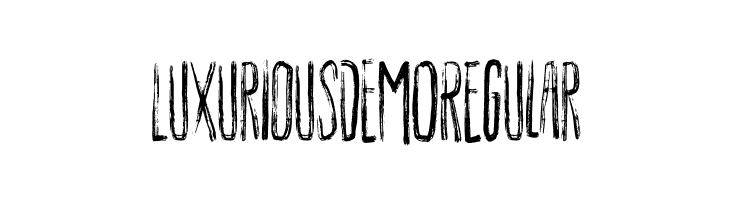
A playful, handwritten font with tall, narrow letters and an informal style.
A bold, brush-style font with a hand-painted, dynamic appearance.
A textured, hand-drawn font with a grunge and artistic style.
A bold, hand-painted style font with dynamic, brush-like strokes.
A bold, brush-style font with an expressive, hand-painted look.
A playful, handwritten font with an informal and friendly style.